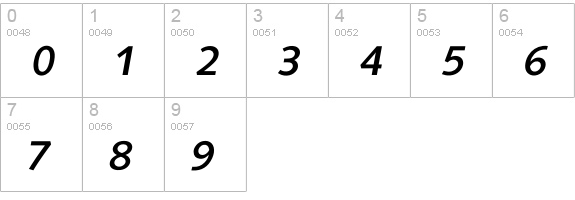
Isaxony Medium is a balanced, medium-weight variant in the Isaxony typeface family \xE2\x80\x94 well suited to sub-headlines, navigation, and balanced editorial work.
Isaxony Medium font is a sleek and modern typeface that exudes elegance and sophistication. Its clean lines and balanced proportions make it suitable for a wide range of design projects, from branding and packaging to editorial and web design. With its medium weight, Isaxony Medium strikes the perfect balance between legibility and expressiveness. Each letter is carefully crafted to ensure optimal readability, while still maintaining its unique personality. The versatile nature of this font allows it to effortlessly adapt to any design concept, adding a touch of professionalism and refinement. What makes Isaxony Medium font even more appealing is the fact that it is free. Yes, you read that right. This stunning font is freely available to download at FontsMarket.com. Now you can enhance your designs with a high-quality typeface without breaking the bank. Whether you're a professional designer or a hobbyist, Isaxony Medium font is a valuable asset to have in your font collection. Its versatility, elegance, and, most importantly, its accessibility make it a go-to choice for any project. So why wait? Head over to FontsMarket.com and download Isaxony Medium font today to elevate your designs to new heights.